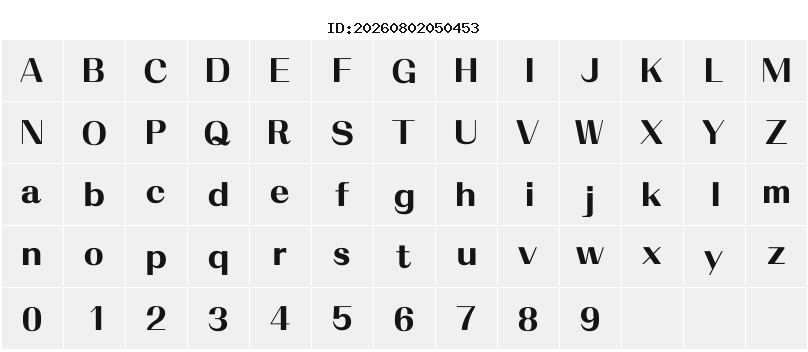
About MRazor HK Xbold.ttf
MRazor HK Xbold.ttf is a modern, elegant sans-serif font designed for ultimate readability and visual harmony. Perfect for branding, headlines, web design, and print materials.